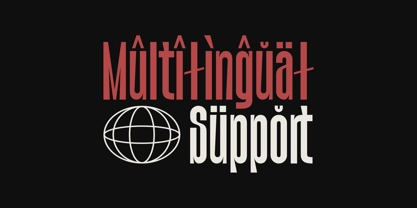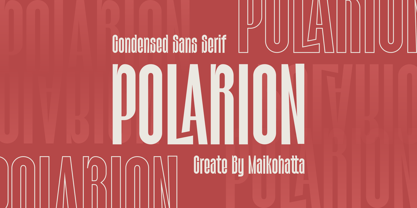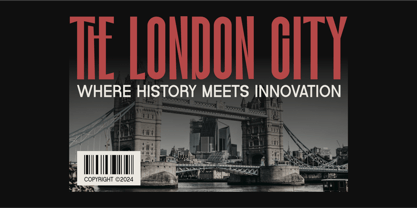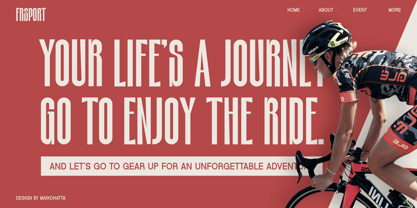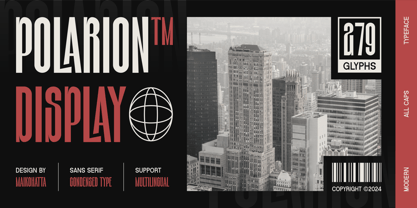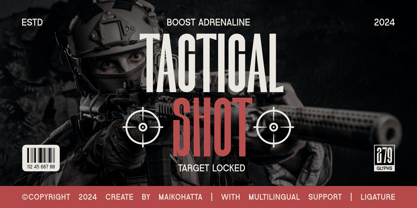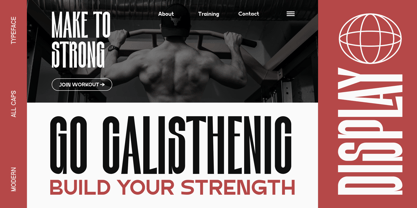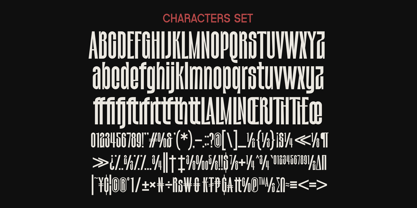
Polarion
by Maikohatta
The Polarion Font Family was designed by Gilang Ternadho and published by Maikohatta. Polarion contains 1 styles.
Introducing our new product Polarion - Sans Serif Display
This font is a typographic masterpiece that harmonizes elegance and sharpness. Every letter within this font is meticulously designed, with a keen focus on balanced proportions and impeccable alignment. This font is well-suited for a variety of contexts, such as print design, promotional materials, or magazine layouts.